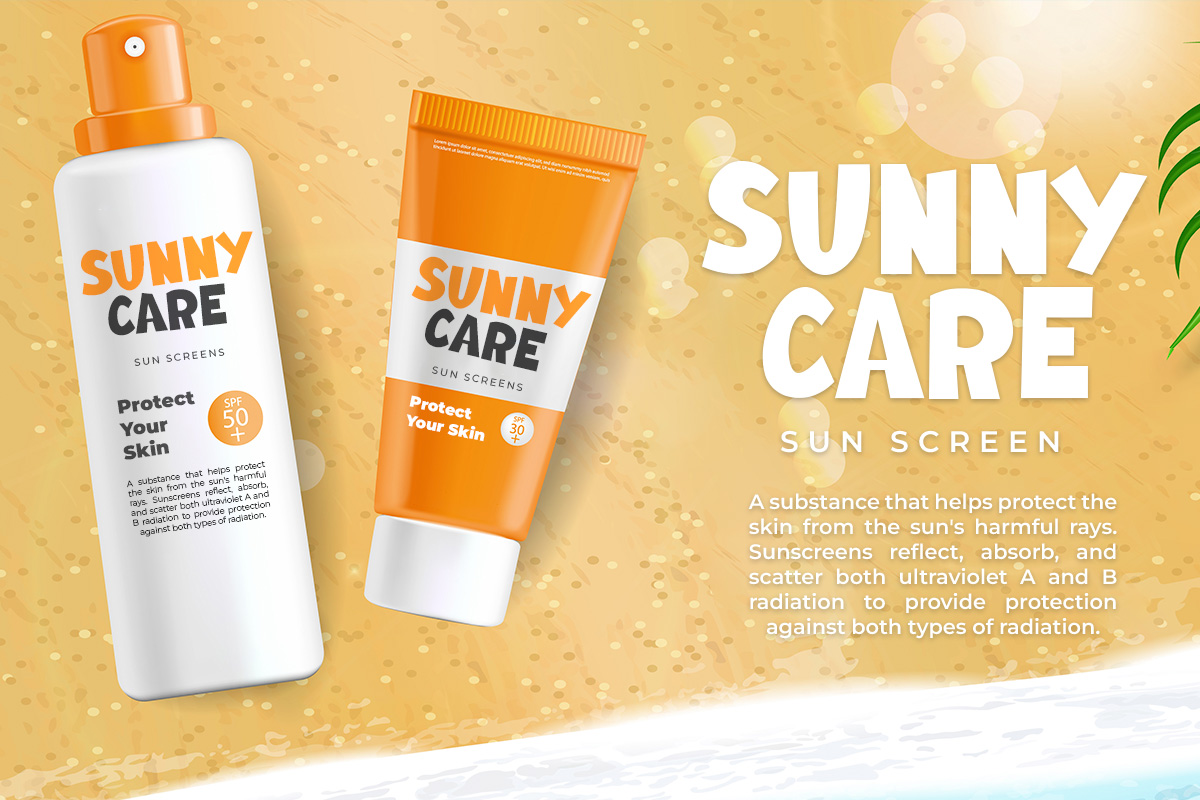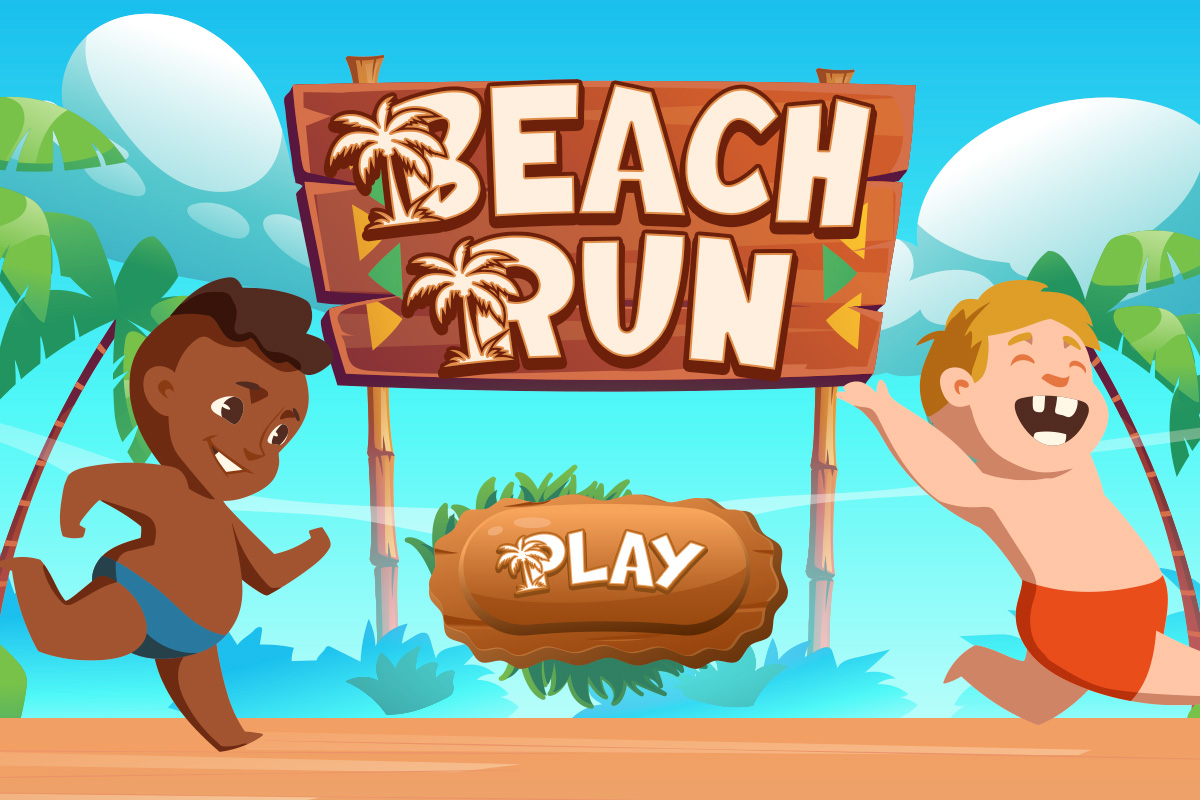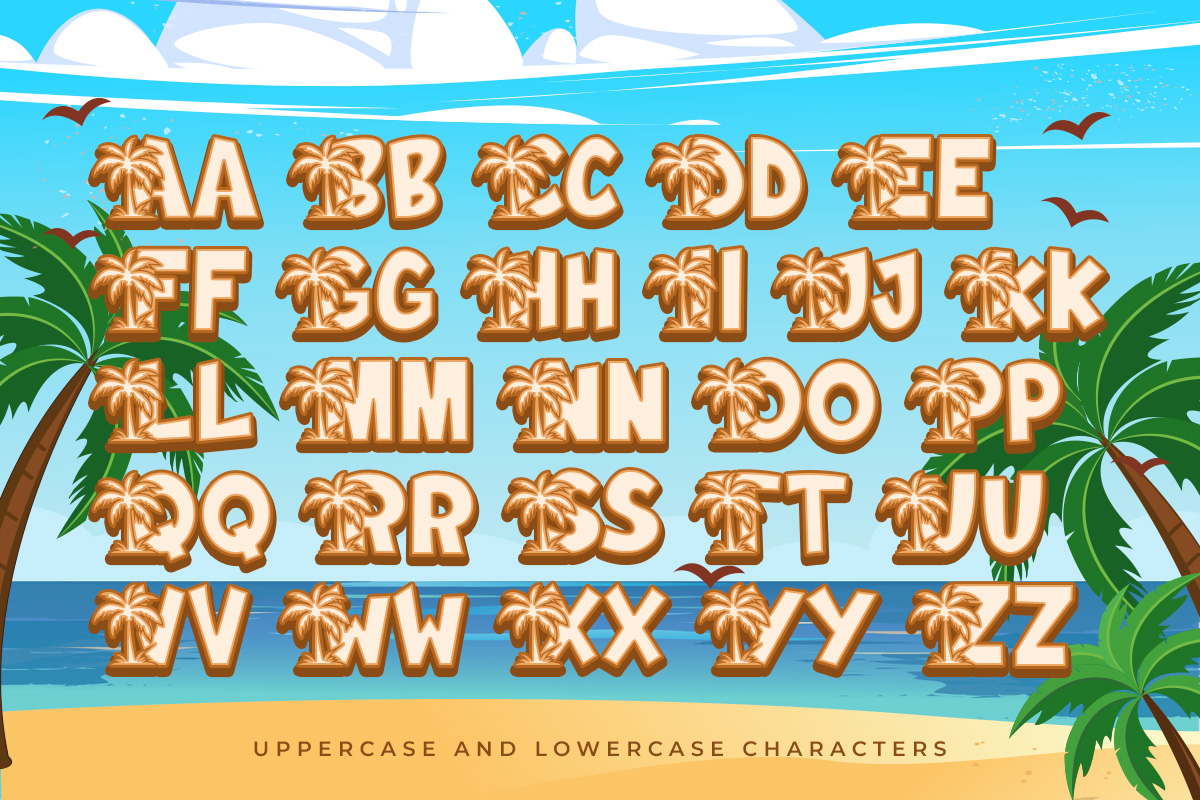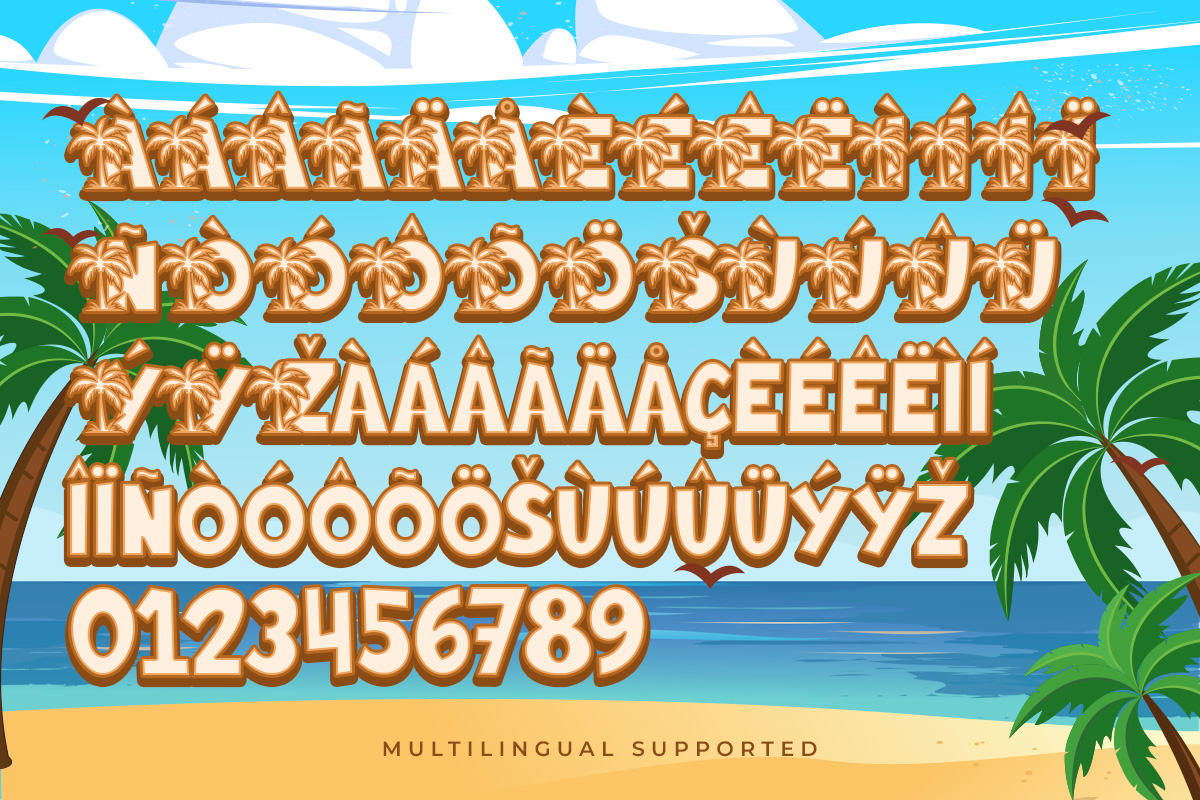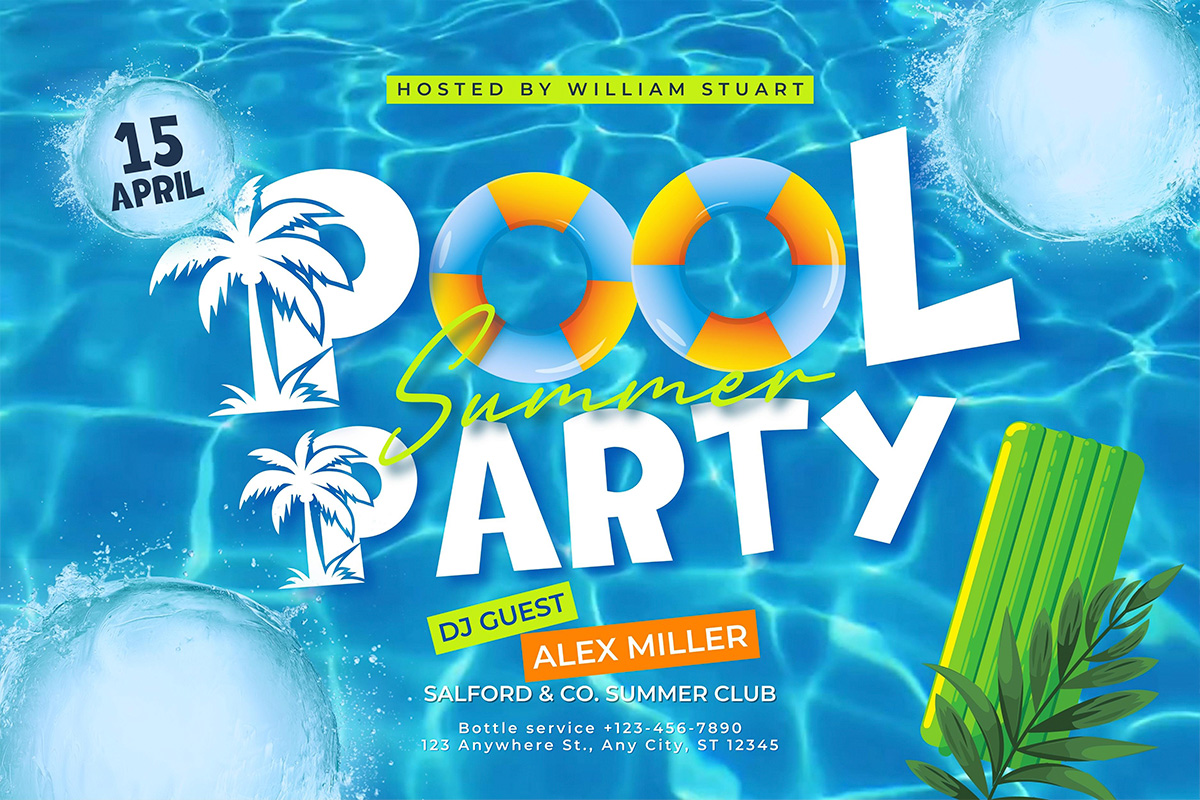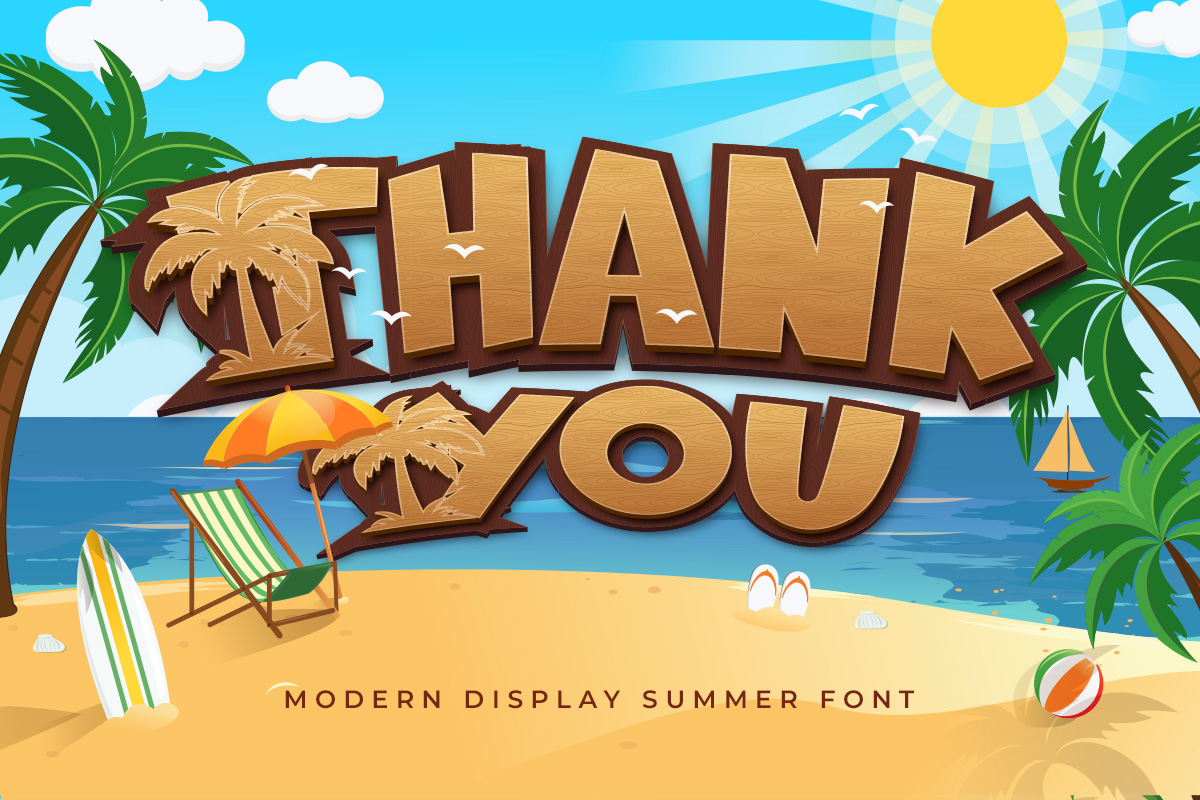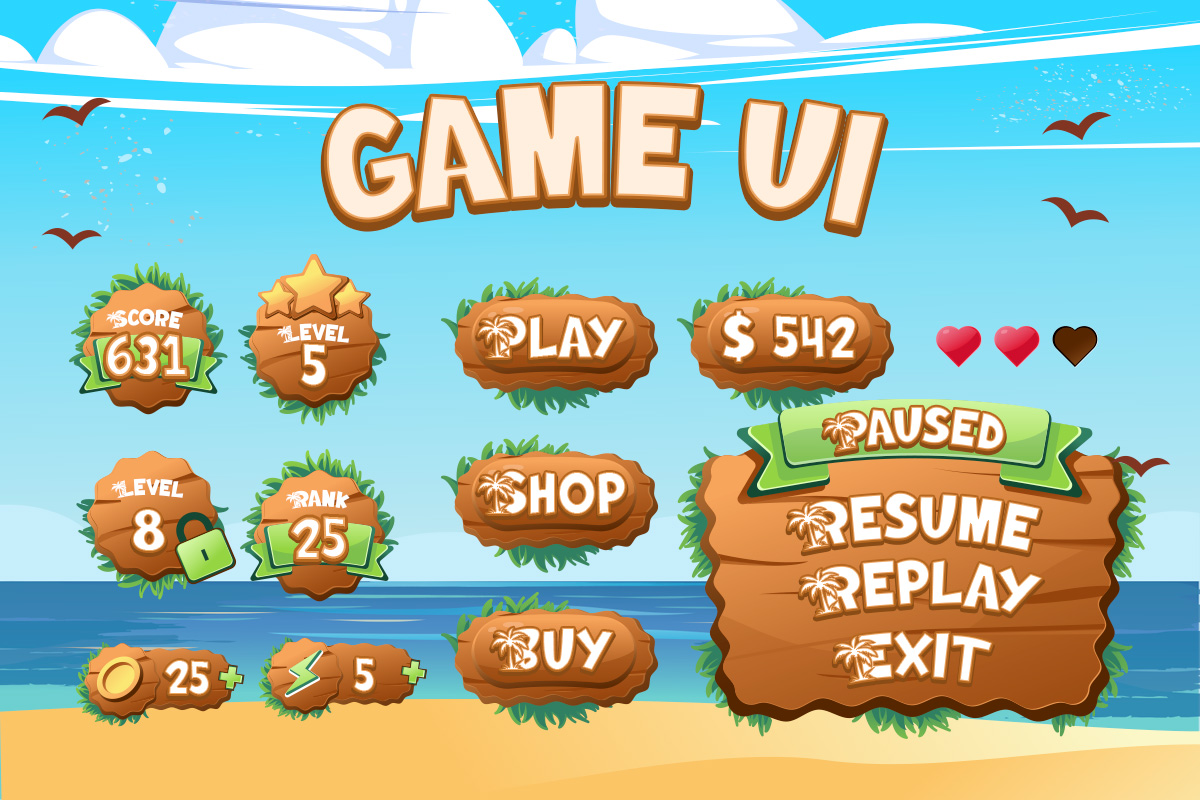
Island Modern Decorative Font Please welcome the Island Modern Decorative Font, our fun and decorative font designed for fun holiday logos and fonts. Island Modern Decorative Font created with simple and modern shapes. Island modern is our lightweight typeface that embodies fun and colorful characters. This font works well both digitally and in print. This typeface has several characteristics that we can see carefully in its simple shape, and there is a tree ornament in the font. These cute shapes are made to look modern, colorful, and fun. This typeface is the best font to use as a brand name or trade item. Anything related to fashion and leisure items, such as T-shirts and holiday gear, pairs well with this font. The font size can be adjusted according to the items included. This font will be suitable for printing in medium font size. In addition to the uses mentioned above, the Island Modern Decorative font can use for event posters with a cheerful and colorful theme. This font can use as tickets, banners, and stickers. The unique font design will also attract the attention of readers who see this poster scattered in various places so that they are interested in reading more about the poster content. Our Decorative font collection is compatible with Figma fonts, Canva fonts, Freepik Fonts and Adobe Fonts. They also work as Windows Fonts and Apple Fonts. For your social media needs, you can use and install fonts in our collection of Decorative fonts to use as Instagram Fonts, Facebook Fonts, and Twitter Fonts.